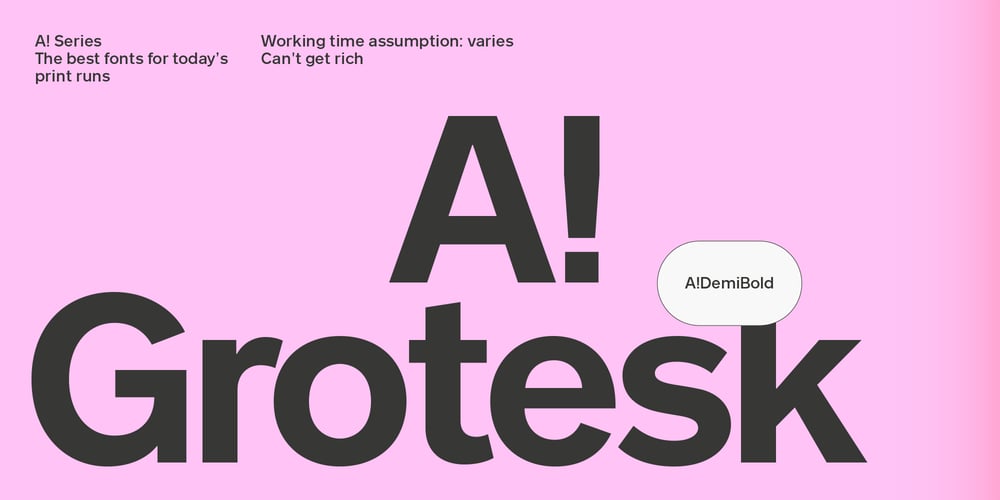
A Grotesk Font Family was designed by Rostislav Vaněk, Roman Cernohous and published by Roman Cernohous Typotime. A Grotesk contains 7 styles and family package options. Inspired by Akzidenz Grotesk A!Grotesk brings calm shapes without loss of dynamics in seven styles. Carefully supervised by graphic and type designer Rostislav Vaněk.The updates to Akzidenz Grotesk with large world-class foundries have generally focused only on a selected group of weights, which has resulted in the persistence of a structural inconsistency from the time when individual weights were developed more or less as independent projects. For compact typesetting, A!Grotesk features an increased x-height to its maximum level, and all characters are expanded. Some characters needed to be significantly widened compared to the original, particularly the lowercase „b“, „d“, „p“, and „q“, to ensure proportional consistency with the letters „o“, „c“, and „e“. In the uppercase, the most noticeable change in proportions is with the letter M. It is no longer compressed into a narrow space but is given the room it requires in relation to the other characters.The accents in A!Grotesk are sensitively designed with consideration for the linguistic conventions of the respective regions, and their shapes correspond to the letterform style of the alphabet. To maintain as compact a typesetting as possible, the lowercase and uppercase accents are aligned with both the upper and lower stems. The A!Grotesk font family has a rich set of characters, including, among others, small capitals, uppercase, lowercase and small cap. numerals and an extensive set of symbols in seven weights.